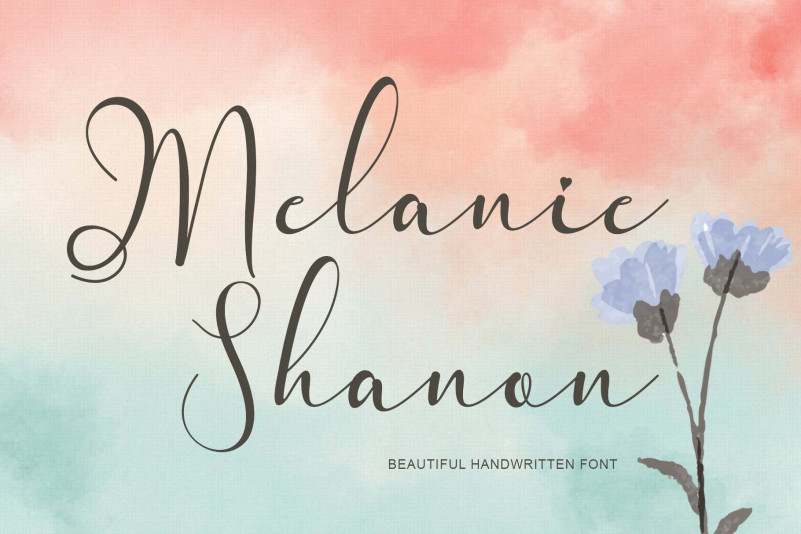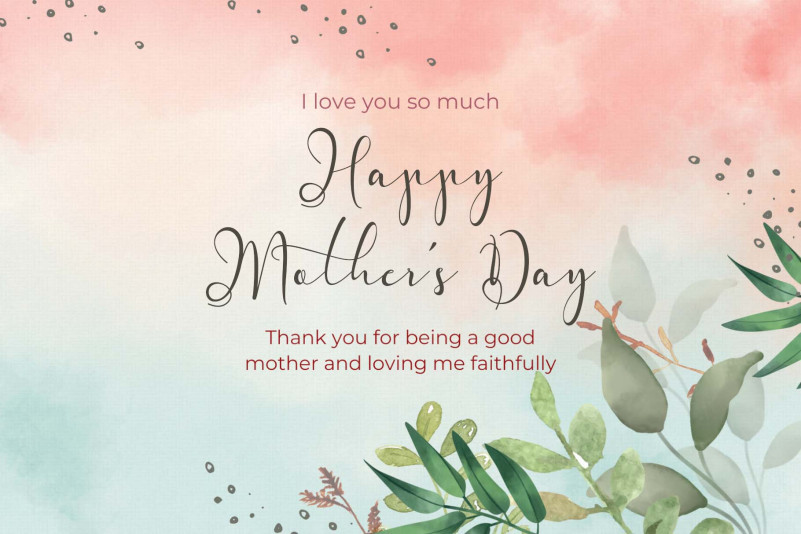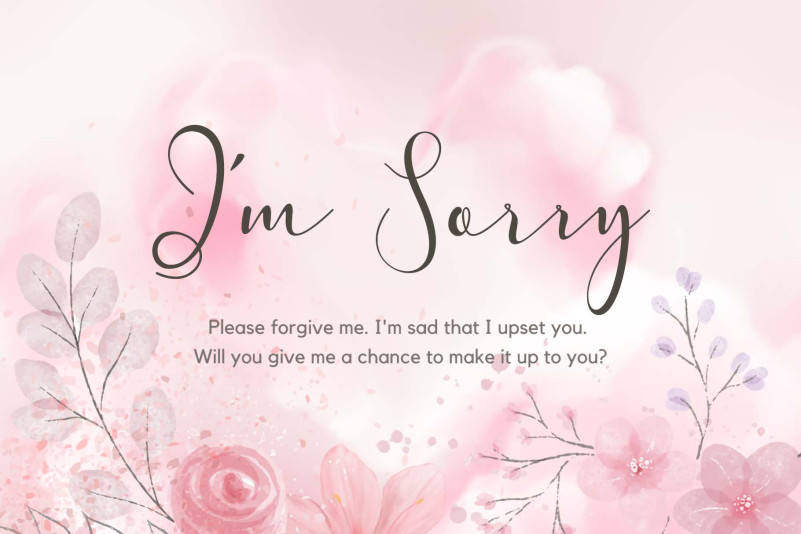
Melanie Shanon Font
Melanie Shanon Font is a graceful, modern calligraphic font. With its beautiful rhythm, this font will help you create gorgeous and classy compositions. Use it for branding projects, invitations, web graphics, cards, and many more!